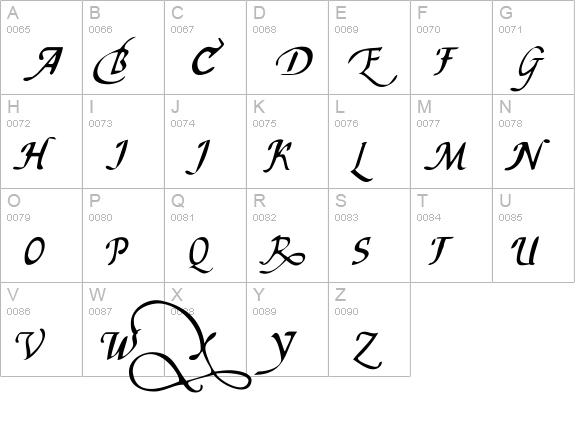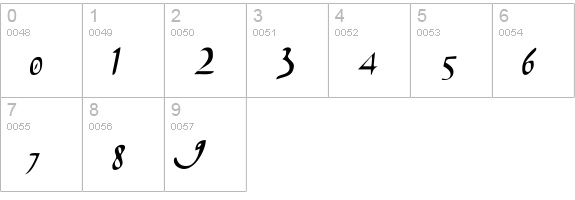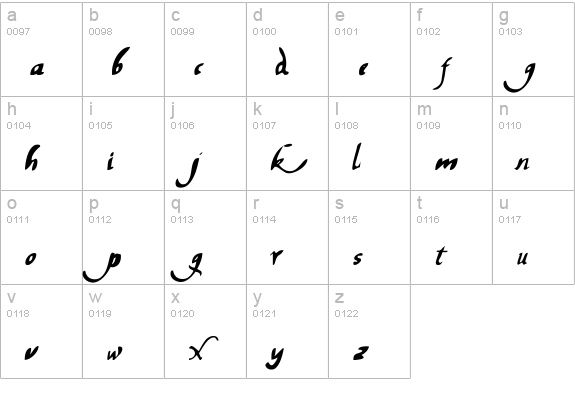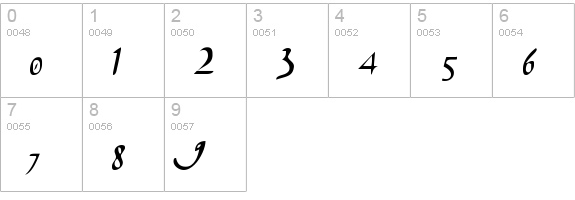
chancelaresca pw Font Details
Chancelaresca PW font is a stunning display typeface that exudes elegance and sophistication. Its intricate details and graceful curves make it perfect for projects that require a touch of class and refinement. This versatile font is suitable for a wide range of design applications, from invitations and logos to packaging and branding. The best part? Chancelaresca PW font is completely free to download at FontsMarket.com. Take advantage of this beautiful typeface to elevate your designs and make a lasting impression. Download it now and add a touch of timeless charm to your projects.